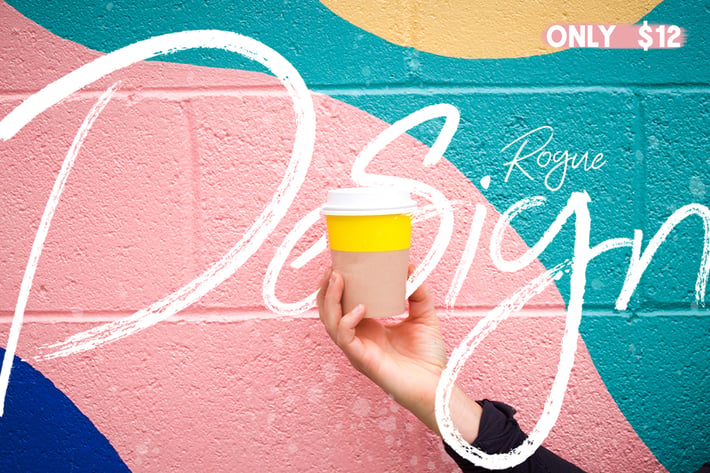
Rogue Design Font
Oh Rogue is a brand new rough Script Font available for ONLY $12! This beautifully rough script typeface was created by hand using Calligraphy pens, before being digitally converting online. We hope you like it as much as we do